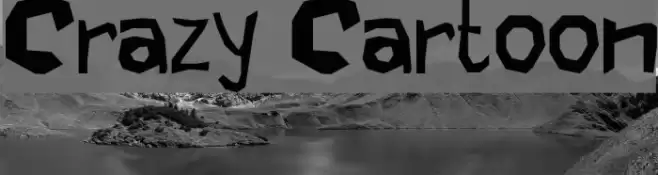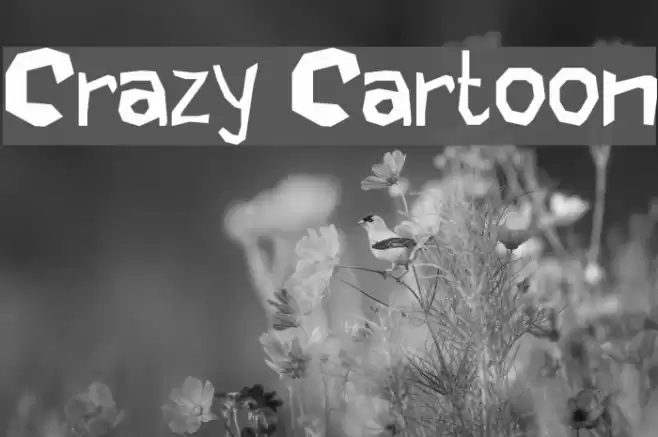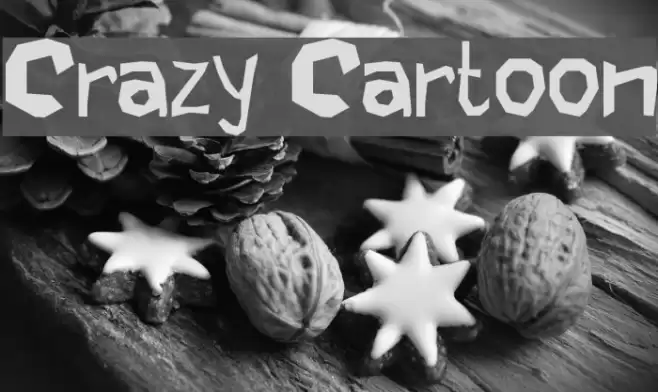
Crazy Cartoon Font
Crazy Cartoon Description
This font exudes a playful and whimsical vibe, characterized by its irregular, jagged edges and dynamic letterforms. The uppercase and lowercase letters both exhibit a hand-drawn, cartoonish style that feels energetic and lively. The numbers and special characters maintain this quirky aesthetic, making the font ideal for projects that require a fun and informal touch. The exaggerated angles and varying stroke widths add to its unique personality, ensuring it stands out in any design.
A playful, cartoonish font with irregular, jagged edges and dynamic letterforms from Cartoon fonts.
- Proposed Projects: Ideal for children's books, comic strips, playful branding, and party invitations.
- Overall Style: Cartoonish, Playful